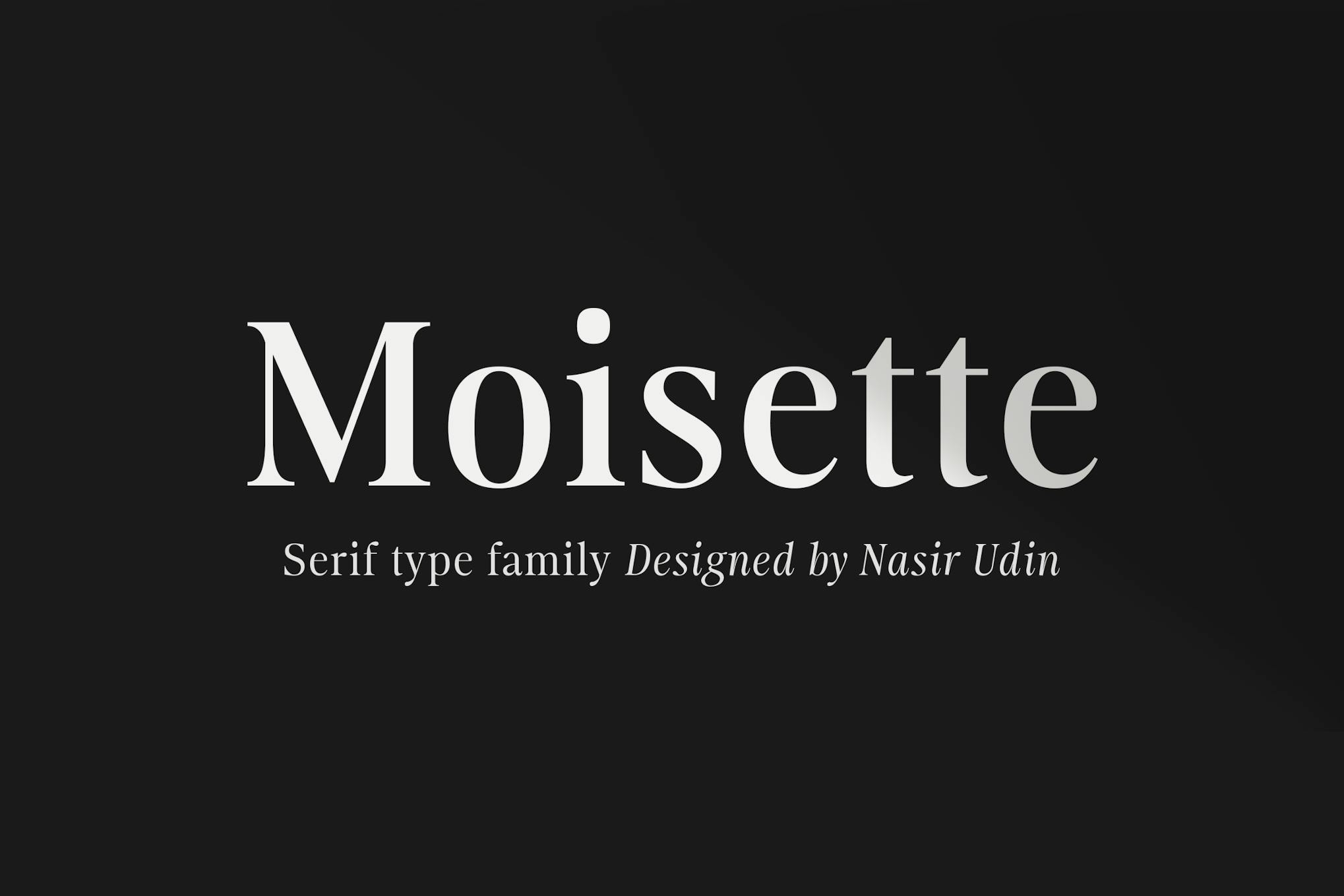
Moisette - 14 Fonts
The Moisette - 14 Fonts collection is perfect for elegant branding, luxury packaging design, sophisticated wedding invitations, high-end fashion magazines, premium product labels, upscale restaurant menus, boutique signage, and refined editorial layouts.
What makes Moisette - 14 Fonts so exciting is its comprehensive typographic system that offers unparalleled design flexibility while maintaining consistent elegance and sophistication throughout the entire collection. This remarkable font family provides designers with fourteen carefully crafted variations that work harmoniously together, creating endless possibilities for establishing complex visual hierarchies and sophisticated brand communications. Each font in the collection demonstrates meticulous attention to detail, with refined letterforms that balance contemporary aesthetics with timeless appeal. The system's versatility allows for seamless integration across all design applications, making it perfect for brands that demand both consistency and creative freedom in their typography choices.
The Moisette - 14 Fonts family includes an extensive range of weights, styles, and variations designed to meet every conceivable design challenge. The comprehensive collection typically features multiple serif and sans-serif options, script variations, decorative display fonts, condensed and extended widths, plus complementary ornamental elements. Many versions include advanced OpenType features, stylistic alternates, decorative ligatures, swashes, and extensive character sets supporting international languages for global branding applications and multicultural design projects.
The collection's remarkable versatility excels across all design mediums, from digital platforms to traditional print applications. Each font maintains its distinctive character while working seamlessly with others in the family, ensuring design consistency and professional results regardless of application complexity or scale.
Professional designers and creative agencies worldwide trust this comprehensive font collection for their most demanding projects requiring sophisticated typography systems. Whether developing complete brand identities, creating complex editorial layouts, or designing comprehensive marketing campaigns, this collection delivers the perfect combination of creative versatility, elegant aesthetics, and professional reliability that elevates any design project to premium standards.